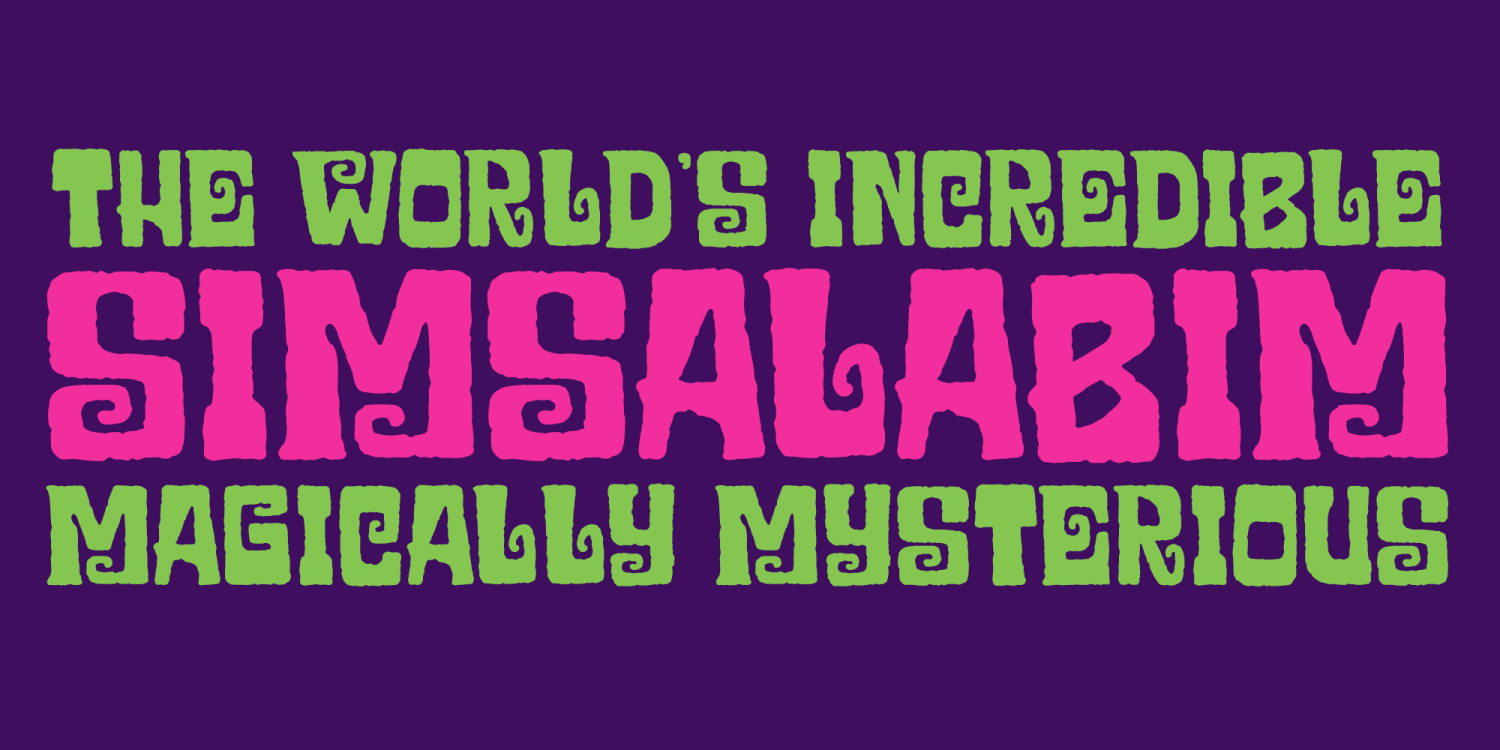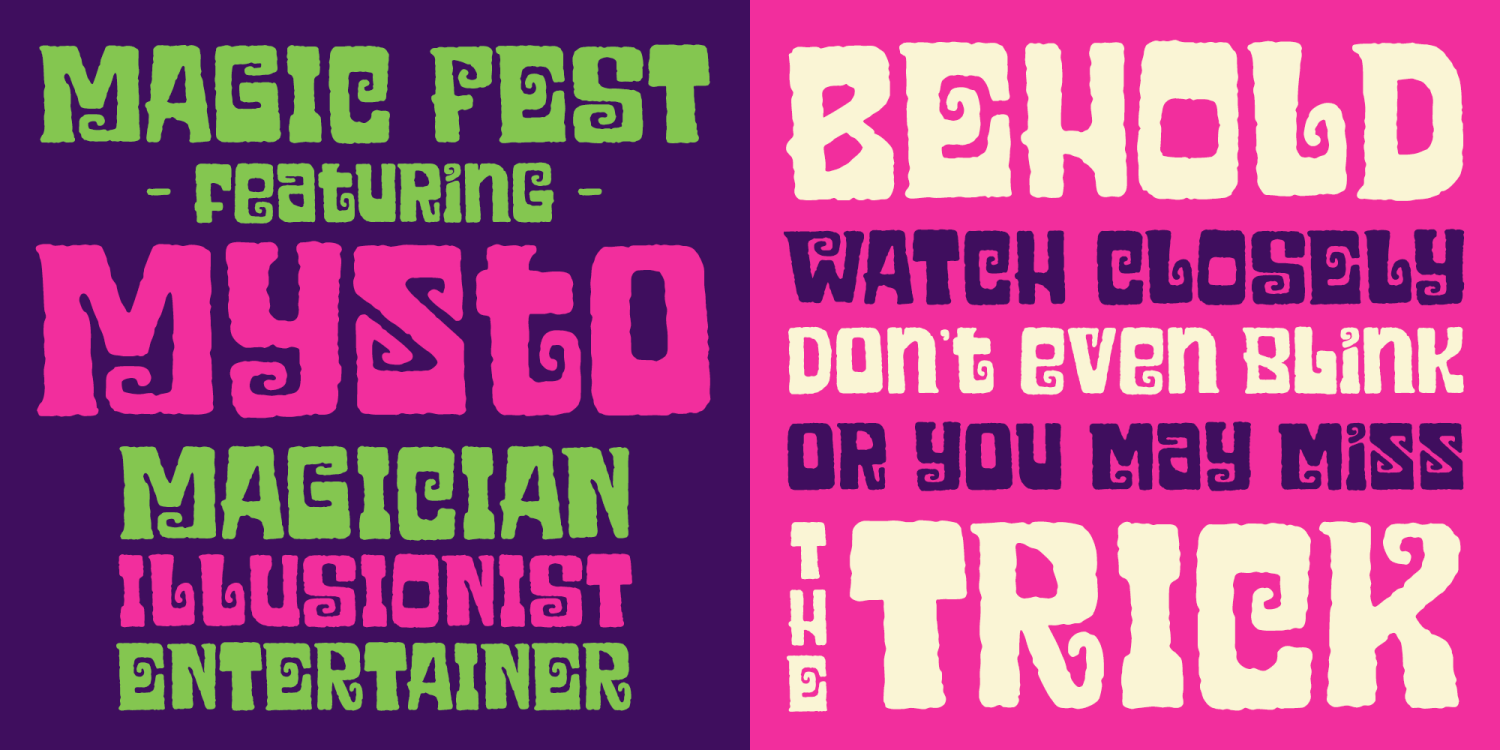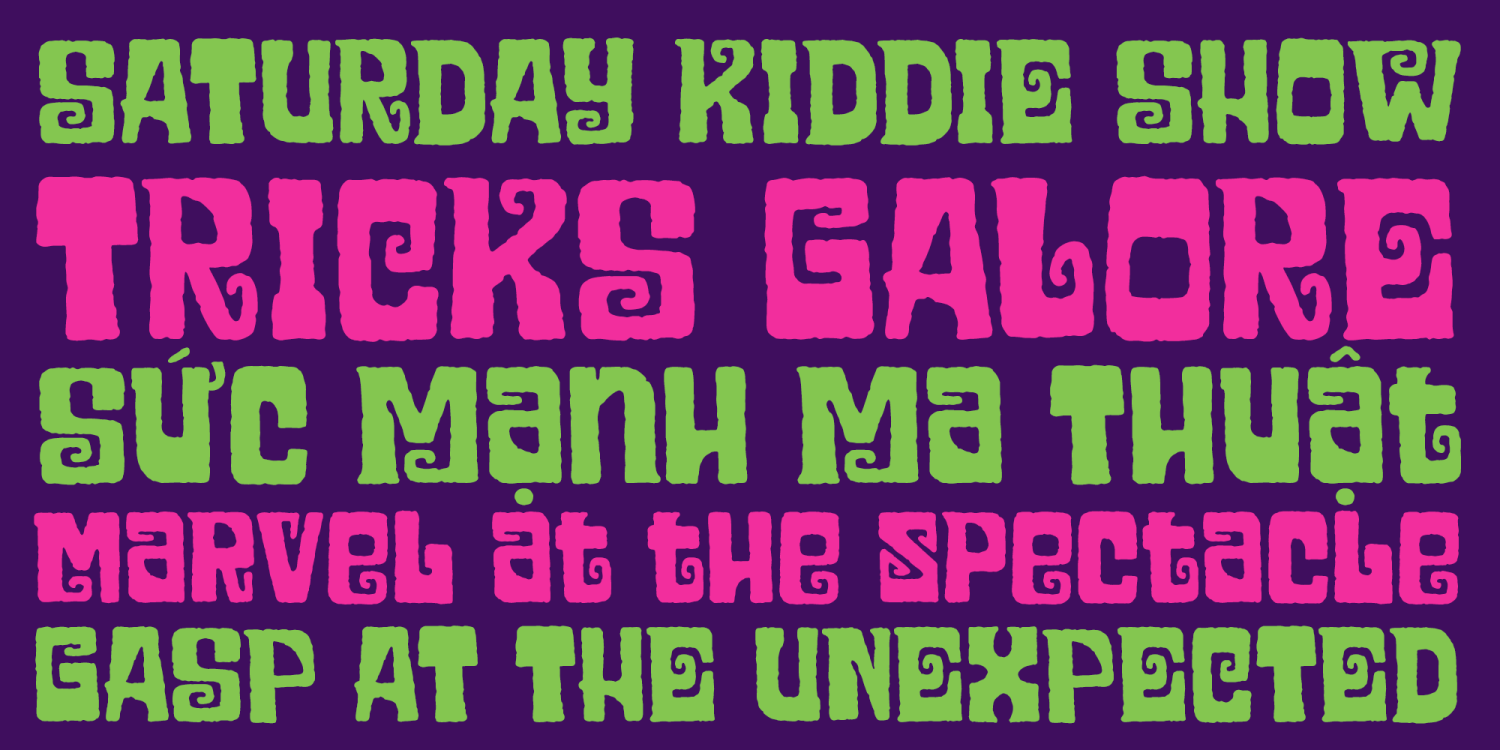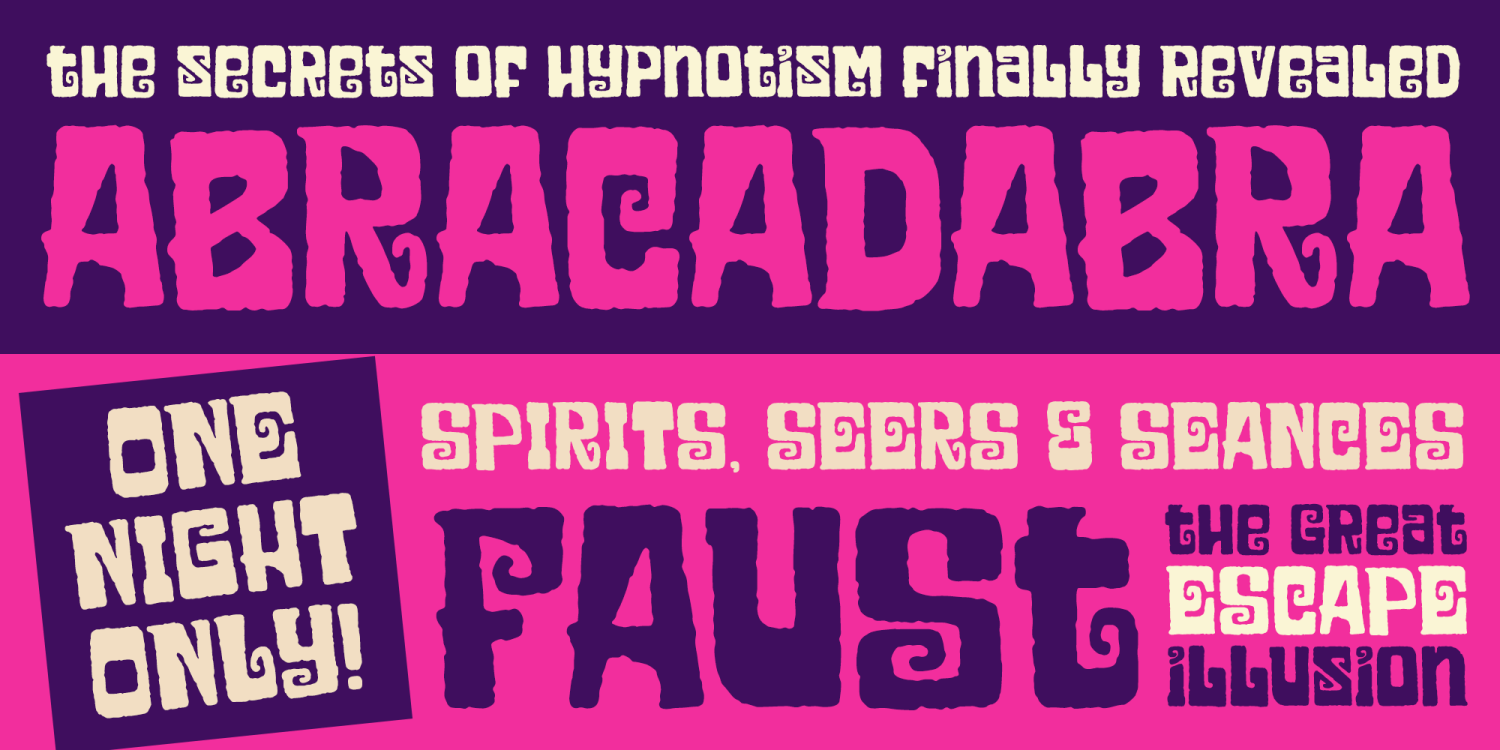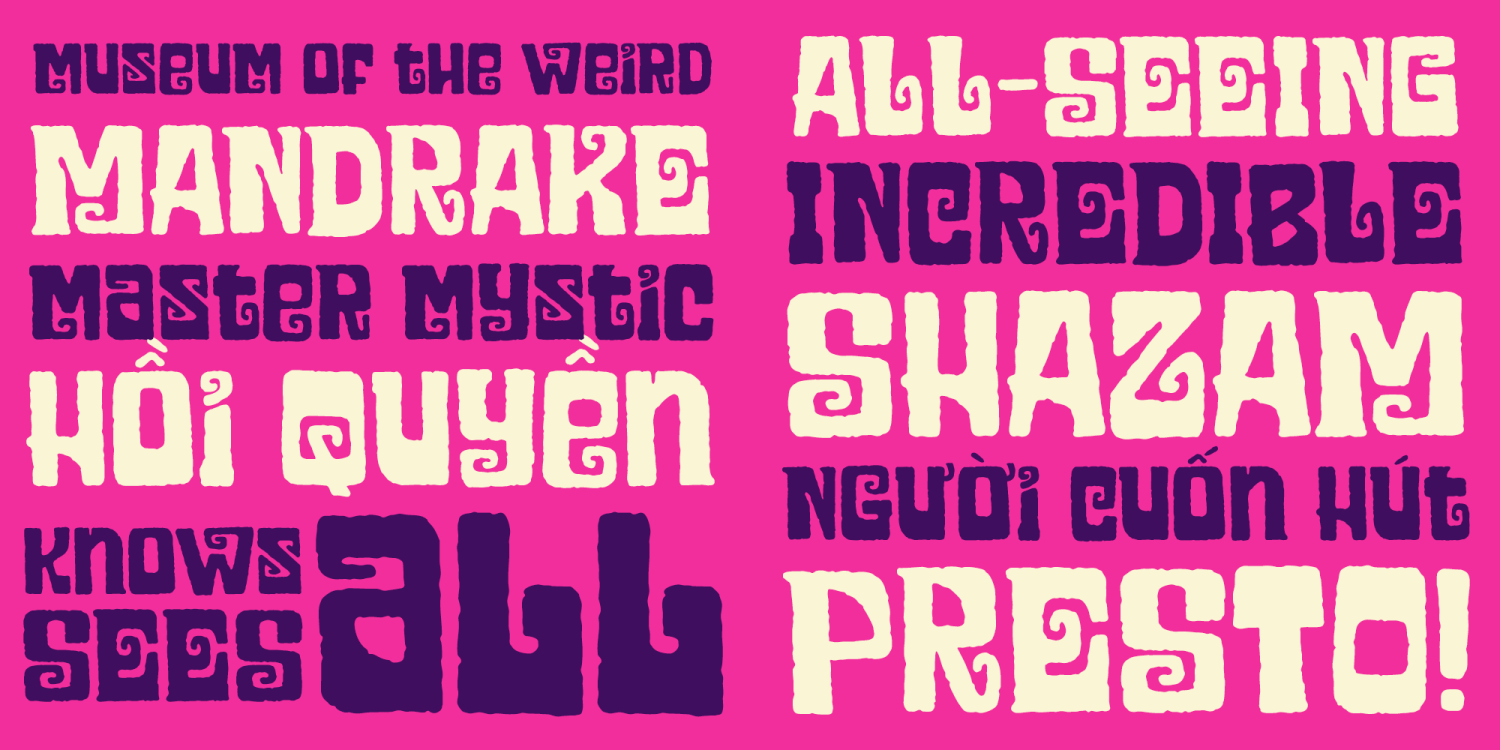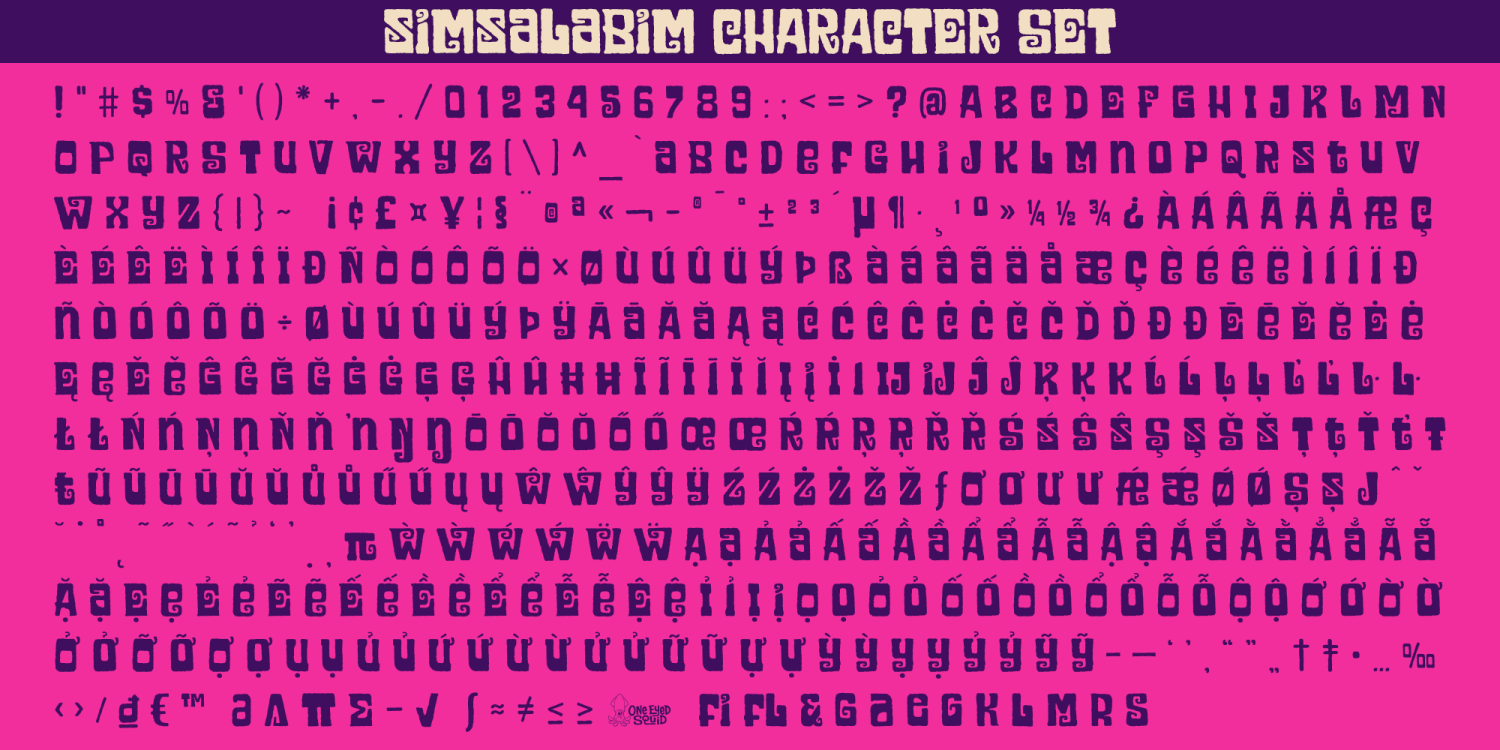
Simsalabim
Simsalabim is a whimsical display font with a playful magical spirit and a charming sense of wonder. Inspired by the showmanship of classic stage magic, its lively letterforms are perfect for creating big, attention-grabbing headlines with an enchanting, theatrical personality. Ideal for posters, branding, packaging, invitations, children’s designs, party materials, social media graphics, and other creative projects that call for fun, fantasy, and decorative flair, Simsalabim brings a spirited and memorable touch to any layout. Includes extended Latin language support, including Vietnamese.
Simsalabim includes 492 glyphs.